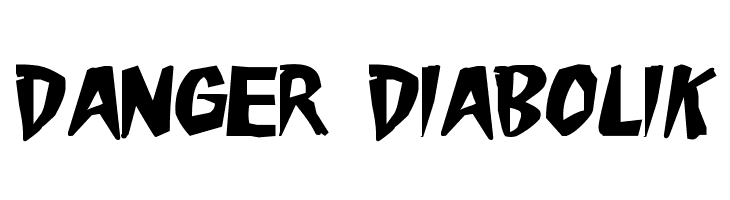
( Fonts by Alphabet & Type: Typography & Graphic - Paolo Vannucci - www.alphabetype.it )
A bold, edgy font with sharp, angular lines and a dynamic comic book style.